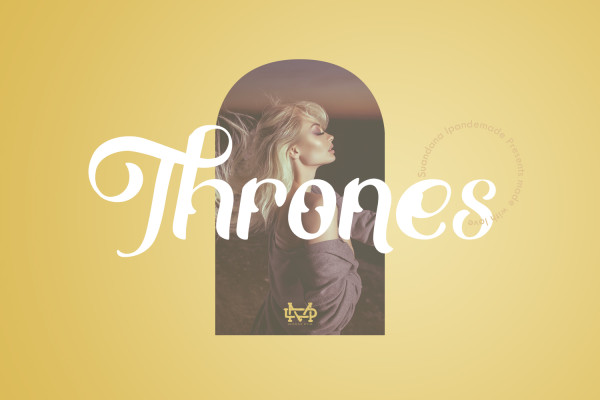
Thrones Display Font Demo
Thrones Display Font is a bold classic typeface with gorgeous design and makes this font suitable for your any project design.